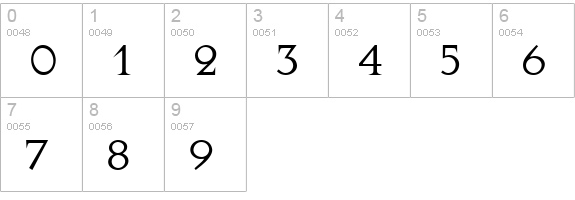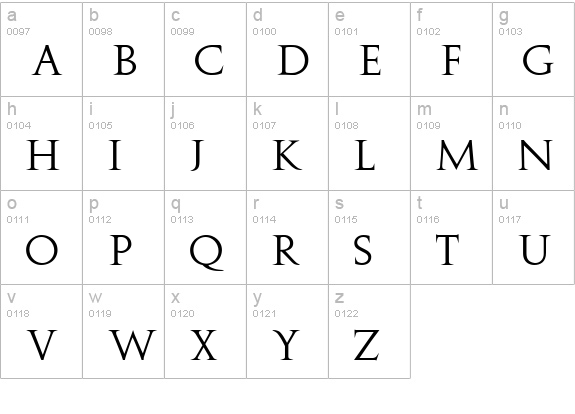
Implicit SSi Font Details
The Implicit SSi font is a stunning and versatile typeface that effortlessly combines elegance and modernity. With its sleek lines and graceful curves, this font is perfect for adding a touch of sophistication to any design project. Whether you're creating a logo, designing a website, or crafting a stylish invitation, Implicit SSi is sure to make a lasting impression. One of the best things about Implicit SSi is that it is free! Yes, you read that right. This incredible font is freely available to download at FontsMarket.com. This means that you can enhance your designs with a high-quality and visually appealing font without breaking the bank. Whether you're a professional designer or a hobbyist, having access to free fonts like Implicit SSi can truly elevate your creative work. With its wide range of weights and styles, Implicit SSi offers endless possibilities for customization. Whether you prefer a bold and impactful look or a delicate and refined aesthetic, this font has got you covered. Its versatility makes it suitable for a wide range of projects, from branding and packaging to headlines and body text. Not only is Implicit SSi visually stunning, but it also boasts excellent legibility. Its carefully crafted letterforms ensure that your text remains clear and easy to read, even at small sizes. This makes it a great choice for both print and digital designs, ensuring that your message is effectively communicated to your audience. In addition to its aesthetic and functional qualities, Implicit SSi is also incredibly easy to work with. With its clean and well-organized character set, you can quickly find the glyphs you need and effortlessly create visually harmonious compositions. Its user-friendly nature makes it suitable for designers of all skill levels, from beginners to seasoned professionals. If you're looking for a font that combines elegance, versatility, and affordability, look no further than Implicit SSi. Download it for free at FontsMarket.com and unlock a world of creative possibilities. With Implicit SSi, you can bring your design visions to life and create visually stunning projects that leave a lasting impression.